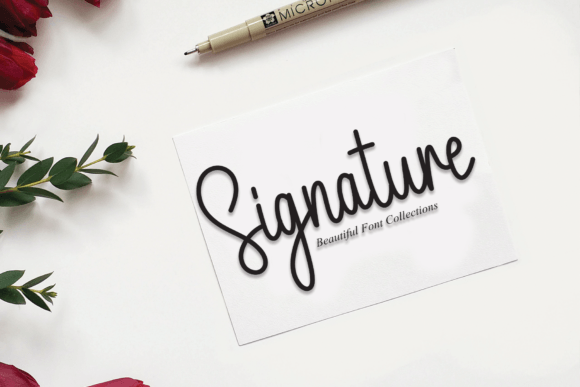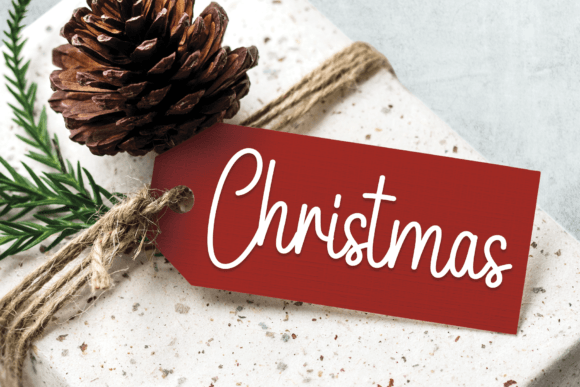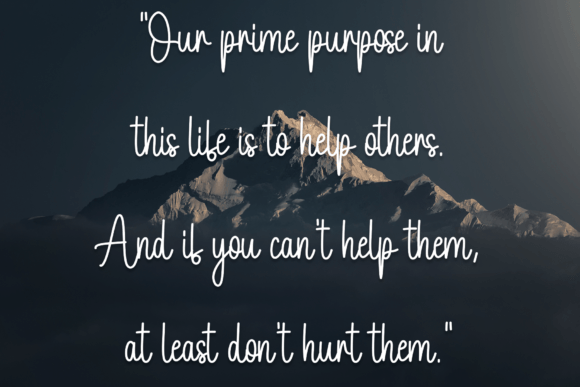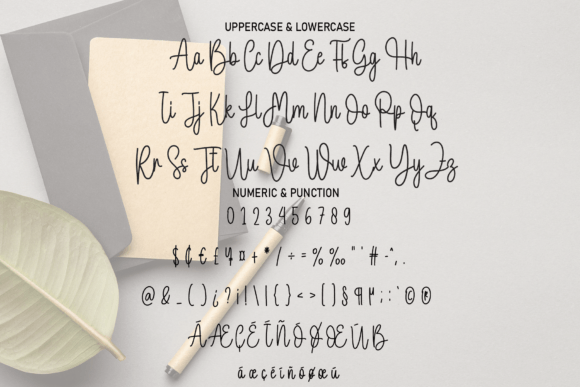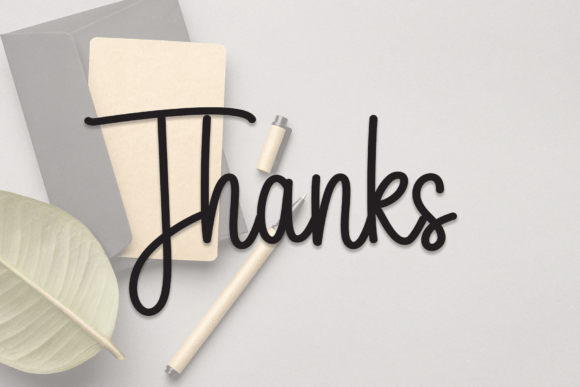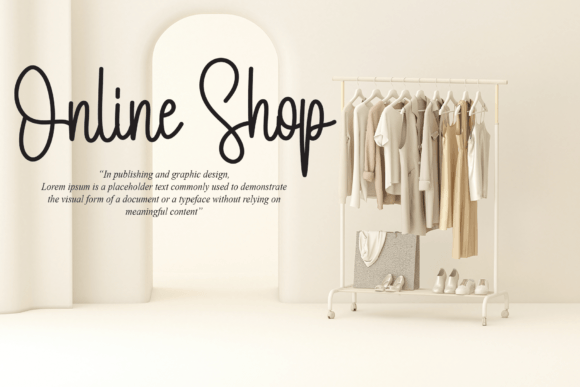
Outlined Font
About Outlined Font
“Outlined” is a friendly and playful handwritten font that brings a sense of fun and creativity to your design projects. This font features beautiful and well-balanced characters, making it a versatile choice that complements a wide range of design styles and concepts. When you incorporate “Outlined” into your most creative ideas, you’ll notice how it breathes life and vibrancy into your designs.
The charm of “Outlined” lies in its ability to infuse a touch of friendliness and playfulness into your projects. Its handwritten style exudes warmth and approachability, making it a wonderful addition to various creative endeavors.
Whether you’re working on branding, invitations, posters, quotes, social media graphics, logos, or any design project that requires a friendly and fun touch, “Outlined” is the font that can bring your ideas to life.
In the realm of design, capturing the attention and engagement of your audience is essential, and “Outlined” excels in this regard. It helps you create designs that are not only visually appealing but also emotionally resonant, leaving a positive and memorable impression on your viewers.
In summary, “Outlined” is more than just a font; it’s a creative tool that adds a sense of friendliness and playfulness to your work. Its versatility and well-balanced characters make it suitable for a wide range of projects, allowing you to create designs that are not only visually appealing but also emotionally engaging. Embrace “Outlined” and watch how it brings a lively and inviting spirit to your most creative ideas.